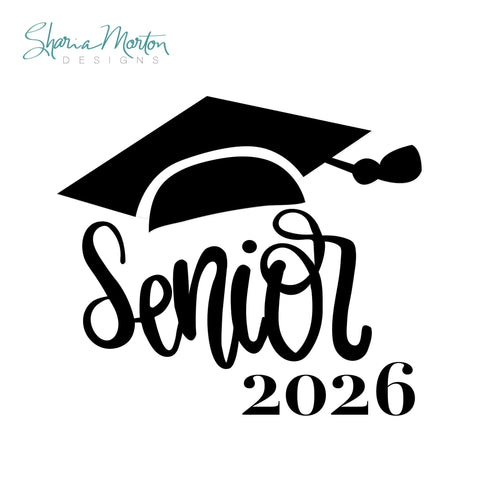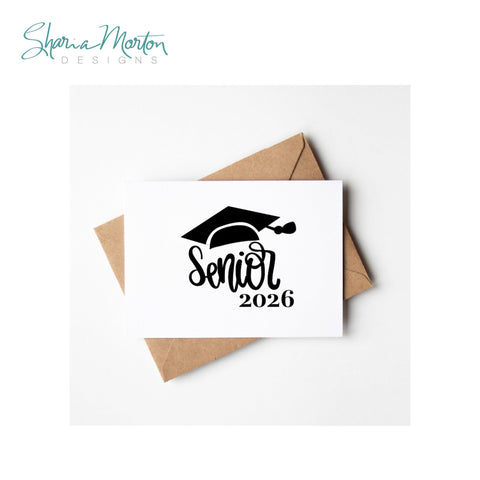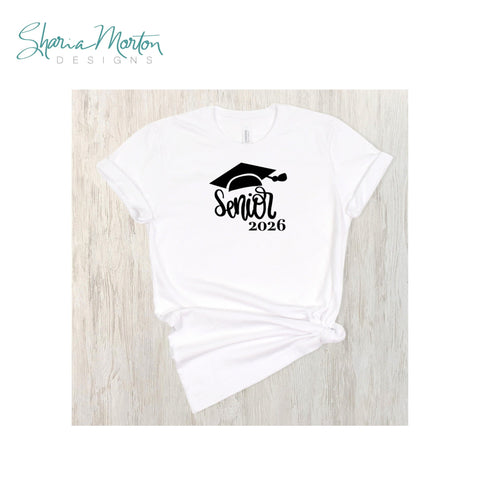
Senior 2026 Bouncy Font Design
Celebrate your senior year in style with this fun Senior 2026 SVG featuring a playful bouncy font and a graduation cap. This vinyl design is perfect for making custom t-shirts, party decorations, cards, invitations, banners, and more. Ideal for seniors, parents, or teachers celebrating the Class of 2026, it adds a cheerful and creative touch to any graduation project.